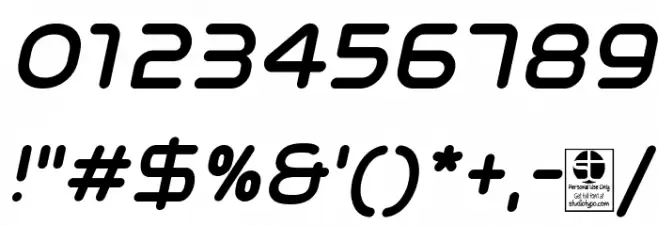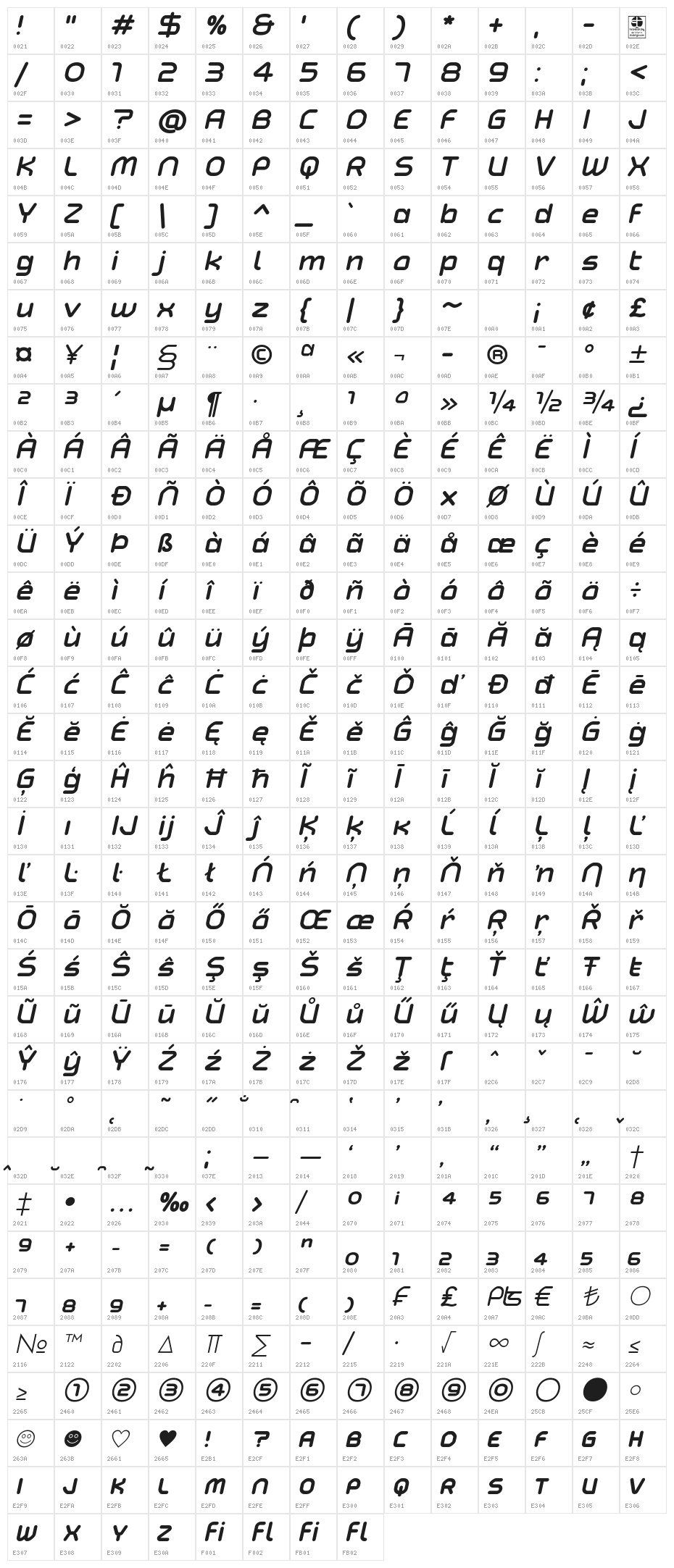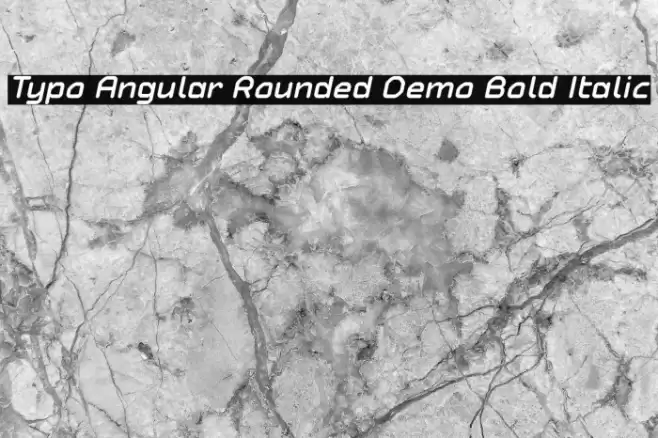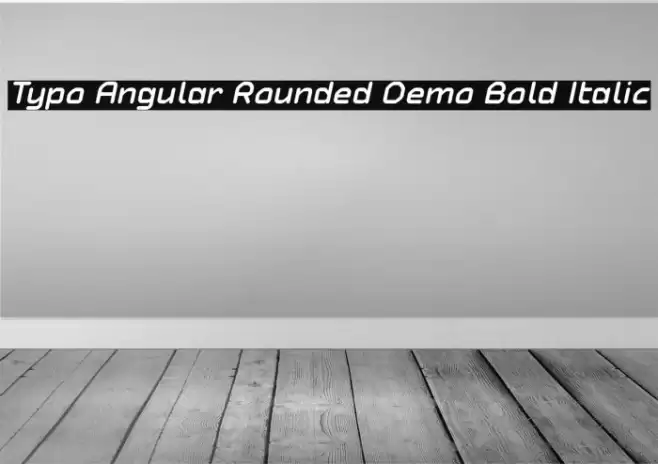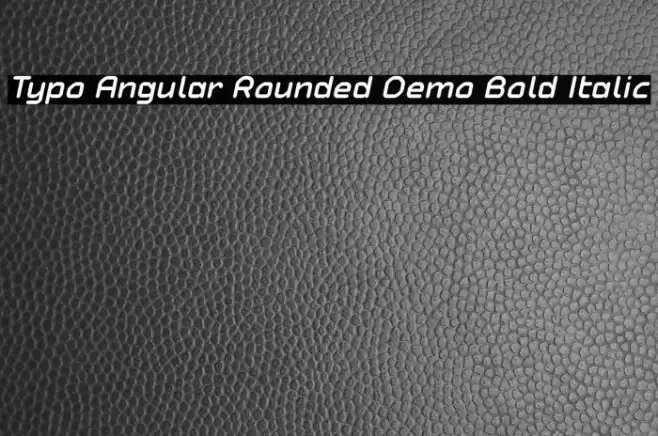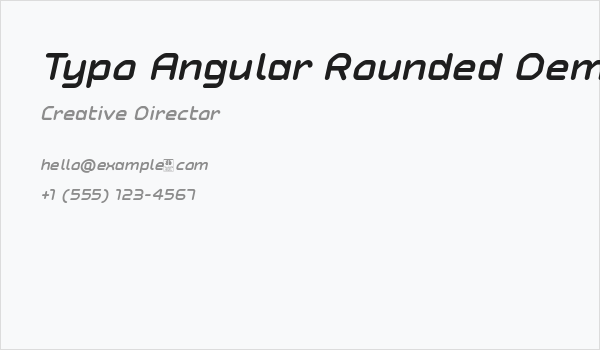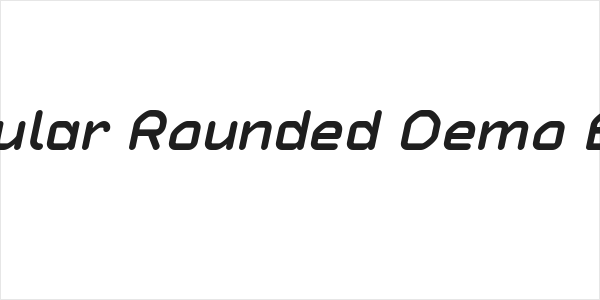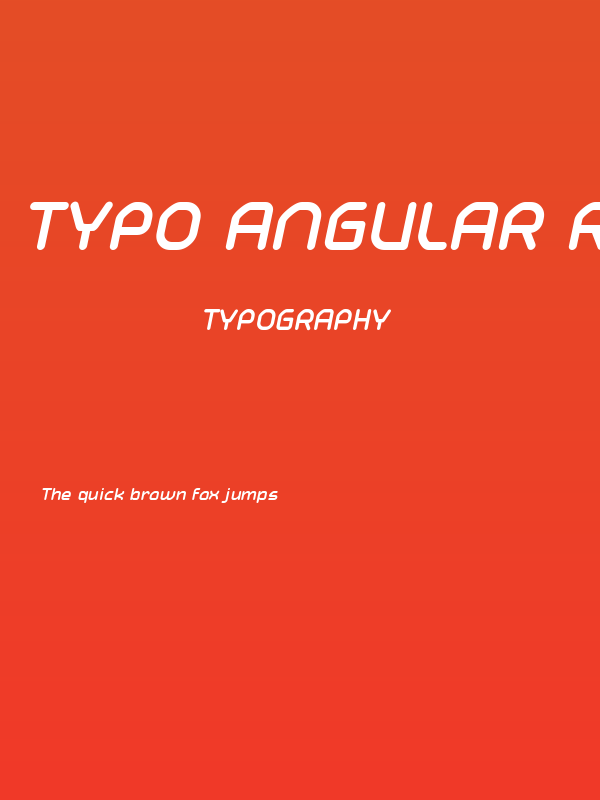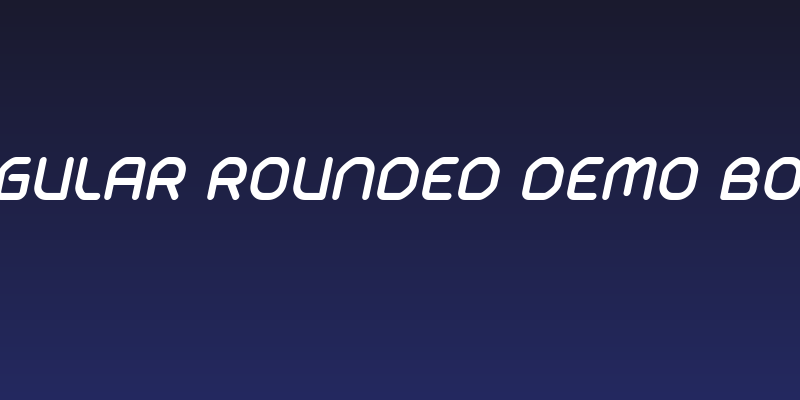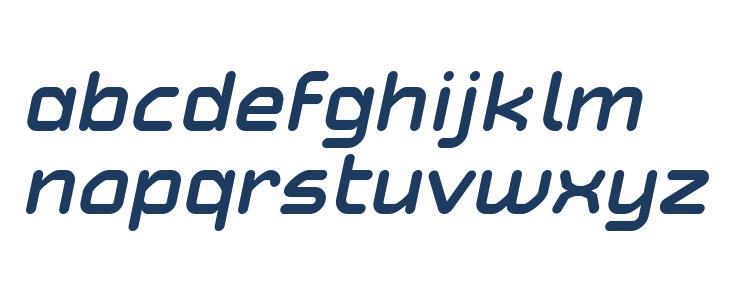
Typo Angular Rounded Demo Bold Italic Font
Typo Angular Rounded Demo Bold Italic Description
This font features a modern, rounded design with a bold and italic style. The characters are smooth and angular, giving a futuristic and sleek appearance. The uppercase and lowercase letters maintain a consistent style, with rounded edges that soften the overall look. Numbers and special characters are designed to match the alphabet's style, ensuring uniformity across all text. The font's bold weight and italic slant make it stand out, ideal for attention-grabbing headlines or logos. Its rounded nature adds a friendly and approachable feel, making it suitable for various creative projects.